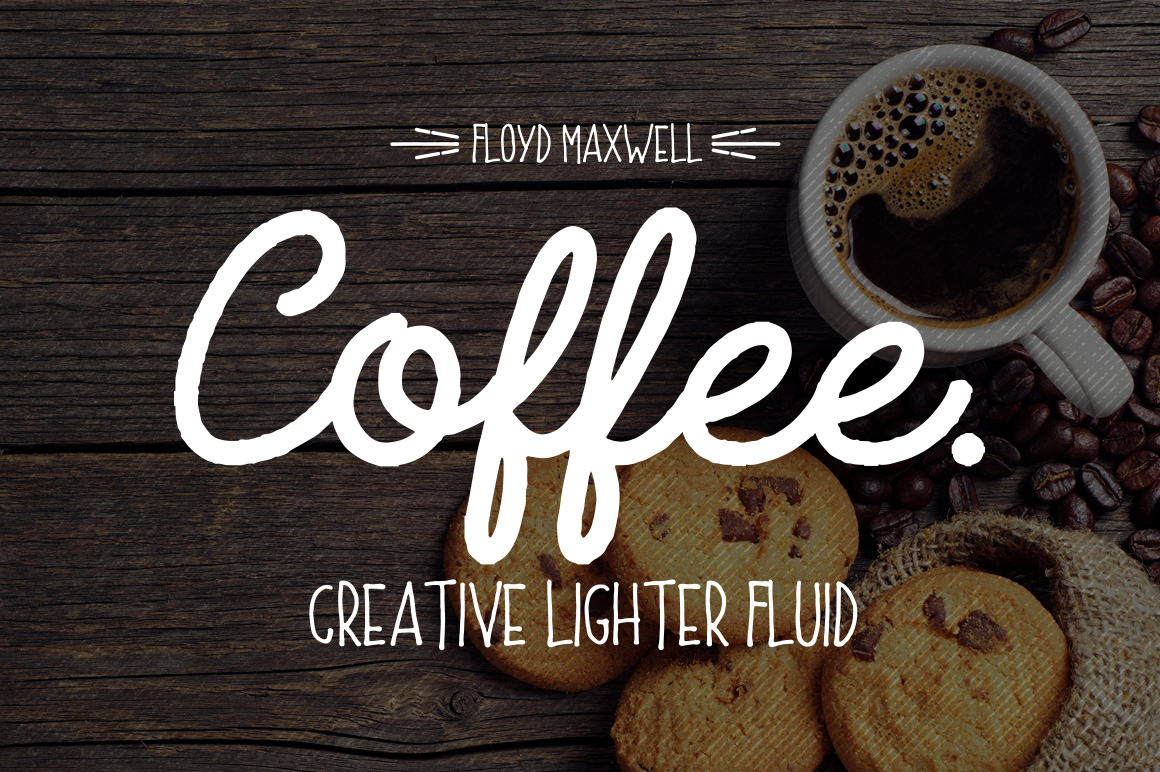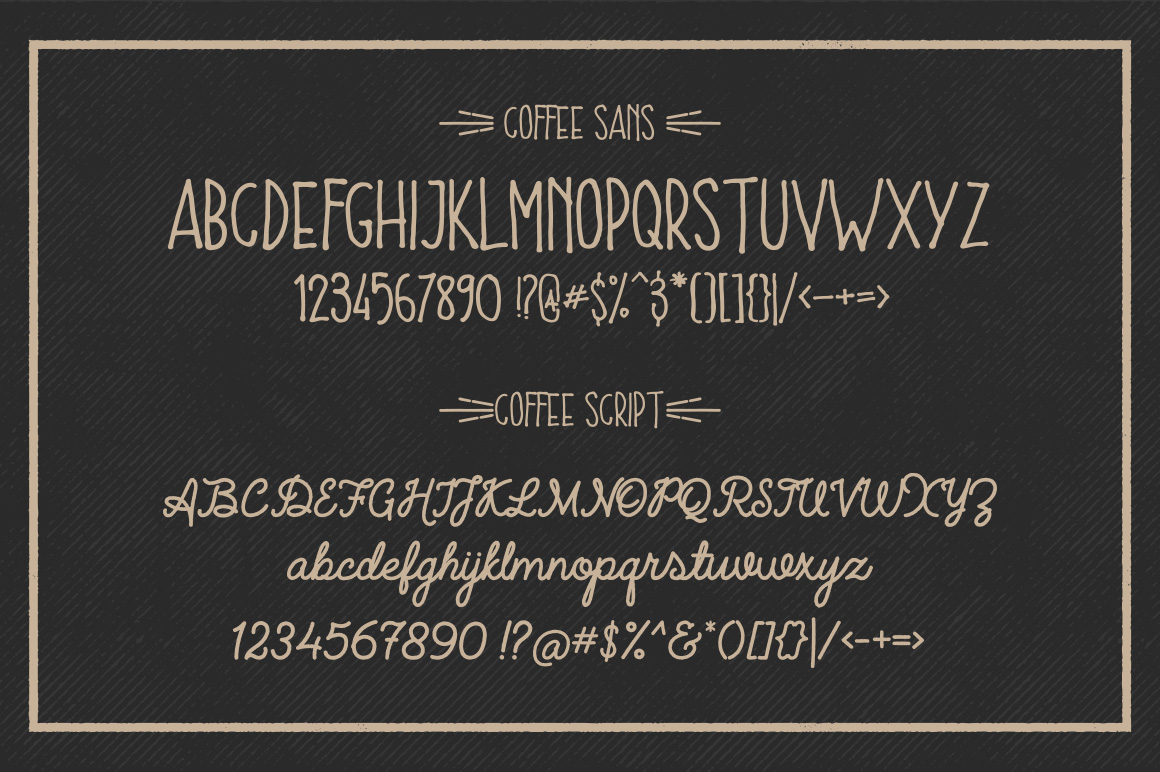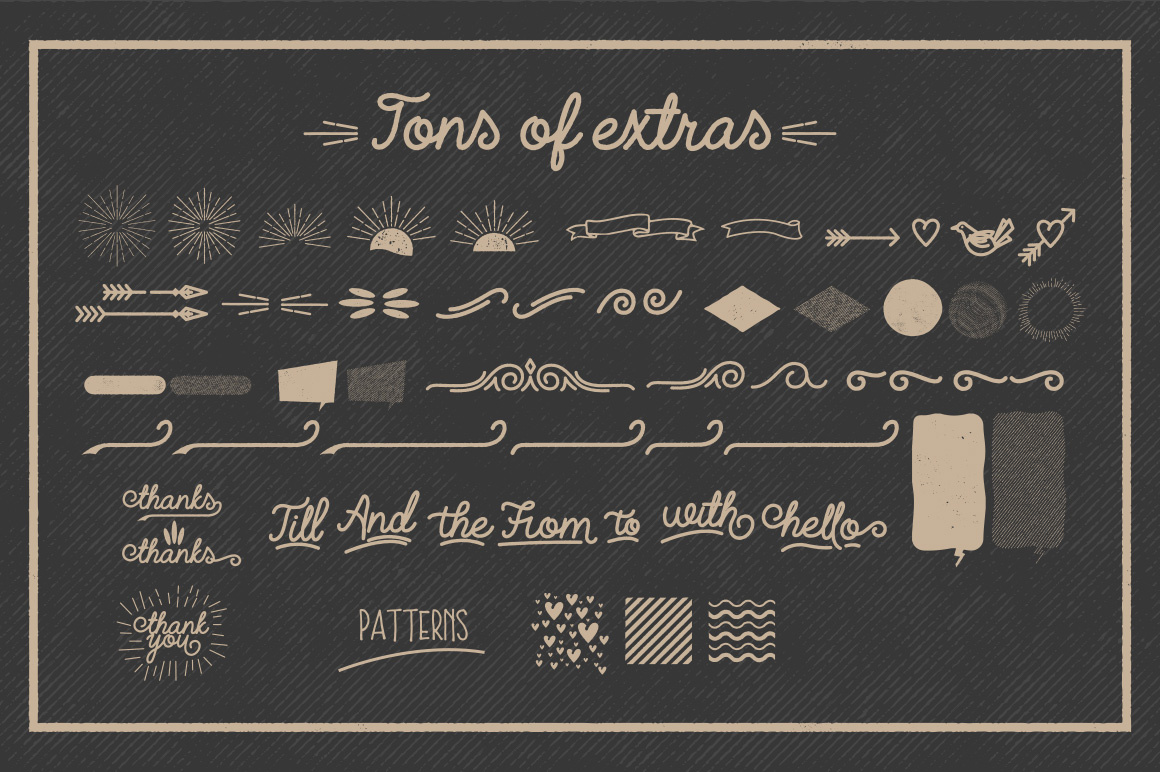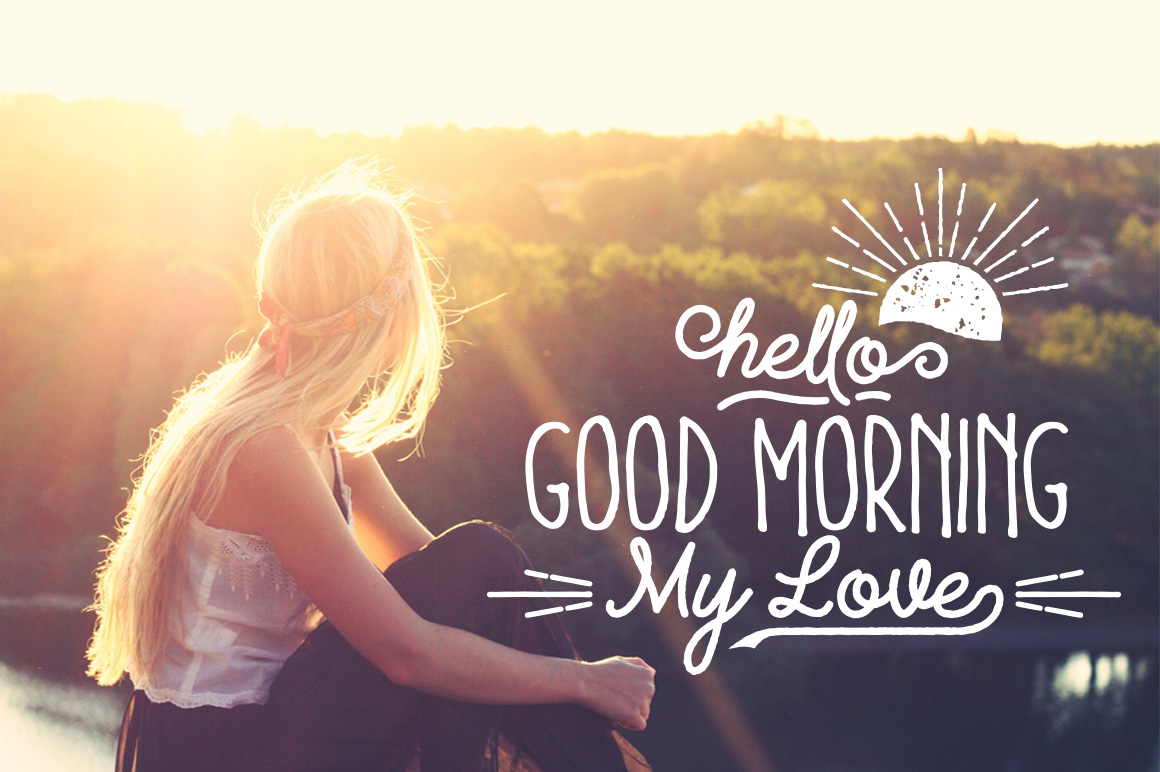
Coffee Font + Extras Font
About the Coffee Font + Extras Font
Discover the charm of Coffee Font + Extras Font. This font is a perfect blend of modern aesthetics and classic appeal. This font duo is phenomenally quaint and friendly; use it to add some warmth to your design work by combining the sans serif design with the script font, and further embellish with the added extras in the set.
Coffee Font’s friendly, slightly quirky personality makes it ideal for branding projects targeting a younger demographic, particularly those involving food, beverage, or lifestyle products. It works well in headlines, short marketing copy, and logos, adding a touch of warmth and approachability. However, its less-structured forms make it unsuitable for body text or UI elements requiring high readability.
Consider pairing Coffee Font with a clean sans-serif like Lato for a balanced contrast, or a more playful geometric sans-serif such as Aktiv Grotesk for a cohesive, modern feel. The script Extras Font complements Coffee Font beautifully in short phrases or as an elegant signature element, but should be used sparingly to avoid visual clutter.
Overall, the Coffee Font duo presents a charming, informal aesthetic best suited for projects emphasizing approachability and warmth. Avoid using it where formality or high legibility is paramount.
Coffee Font + Extras Font Usage Examples
Coffee Font + Extras Font Example